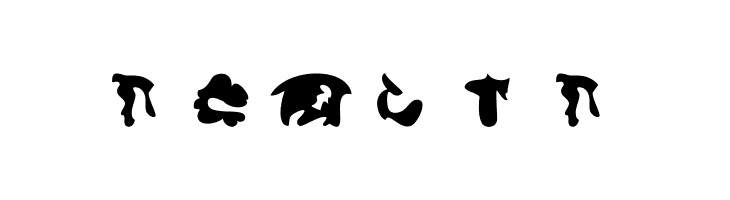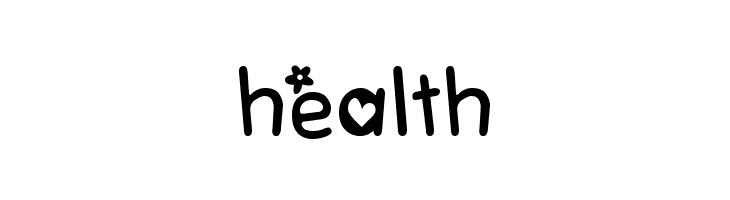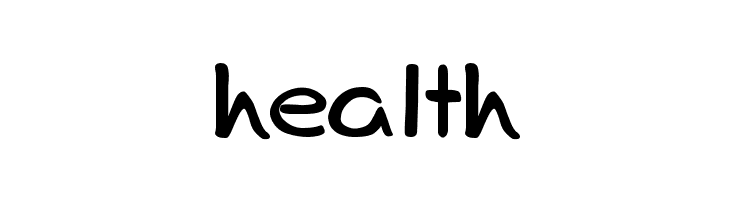
A playful, hand-drawn font with a whimsical, swirly style.
( Fonts by Irma Sanchez )
An abstract, artistic font with bold, silhouette-like characters.